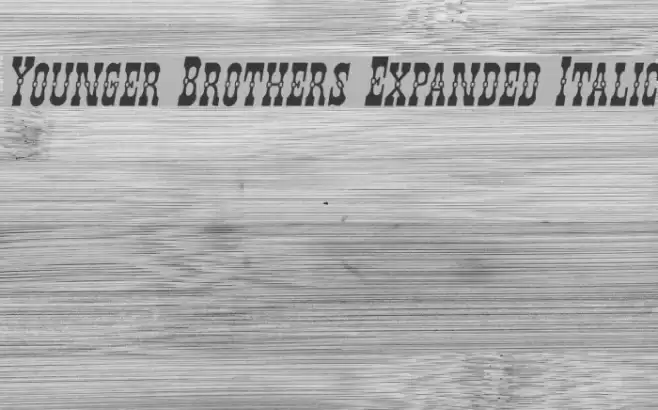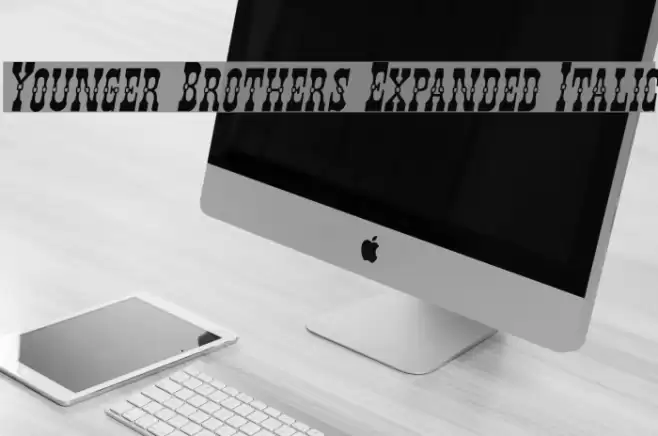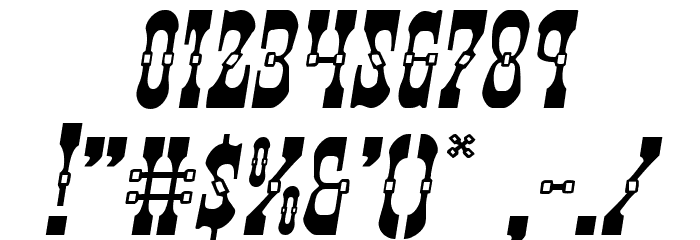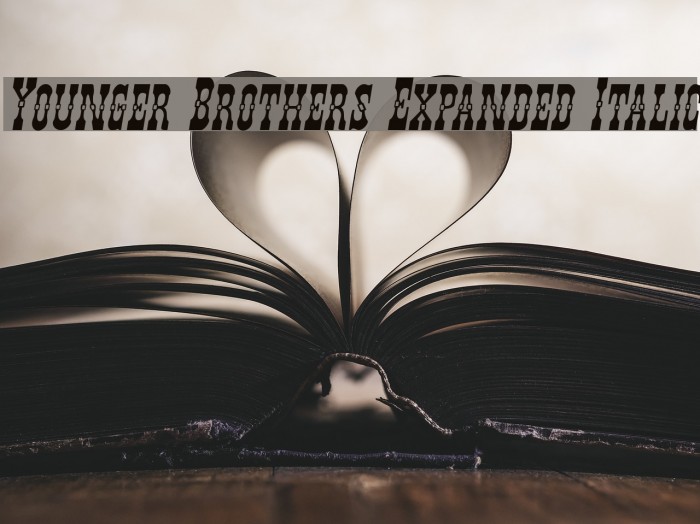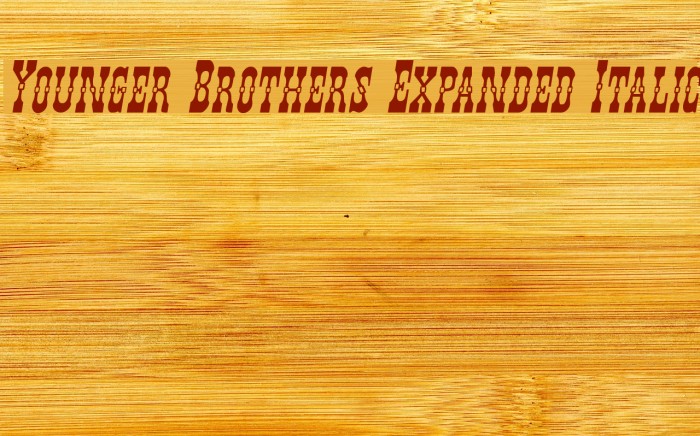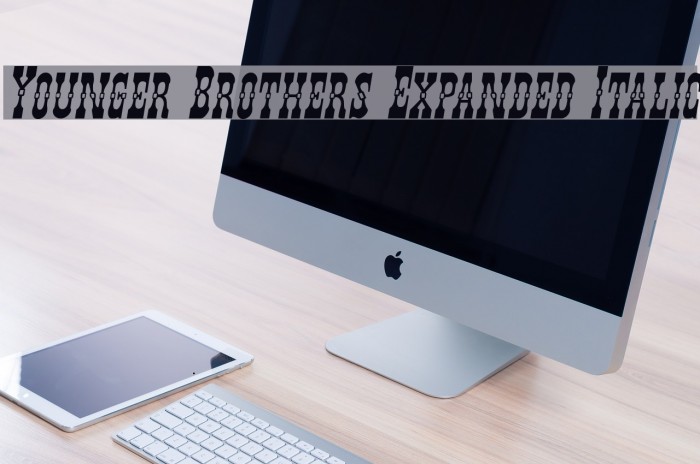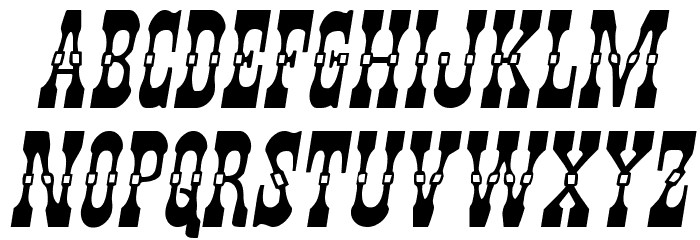
Younger Brothers Expanded Italic Font
Younger Brothers Expanded Italic Description
This font features a bold and expanded style with a distinct italic slant, creating a dynamic and eye-catching appearance. The characters are designed with a unique decorative element, incorporating small cutouts that add an intriguing visual texture. The uppercase and lowercase letters maintain a consistent style, with the uppercase being more pronounced. The numbers and special characters follow the same design principles, ensuring uniformity across all glyphs. This font's boldness and expanded width make it suitable for impactful designs, while the italic slant adds a sense of motion and energy.
A bold, expanded, and italic font with decorative cutouts for a dynamic look.
- Proposed Projects: Ideal for posters, branding, and headlines where a bold and unique style is desired.